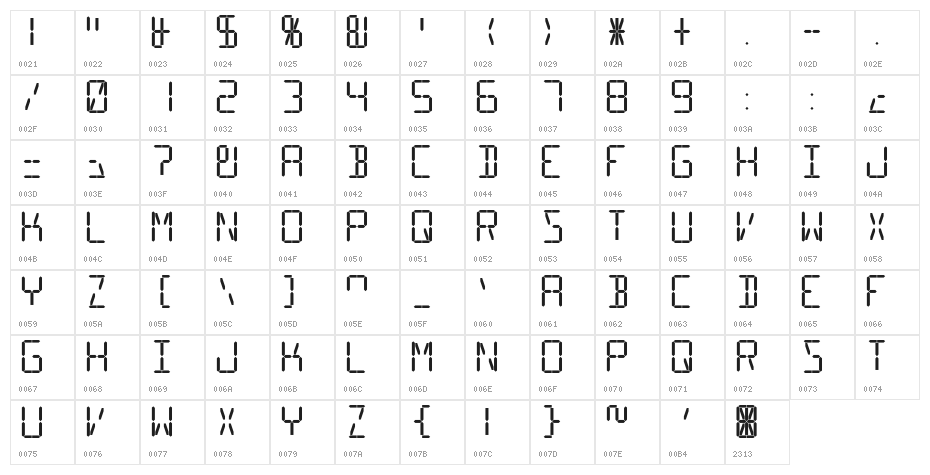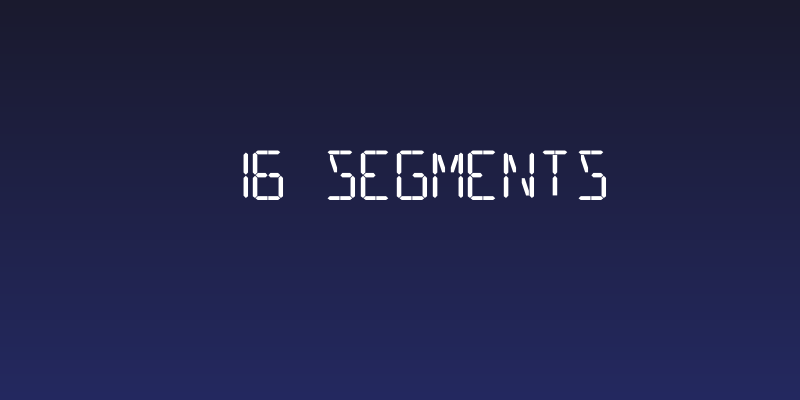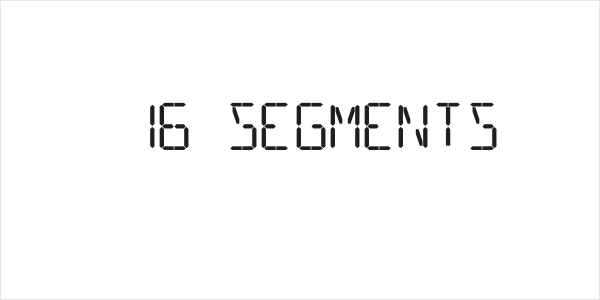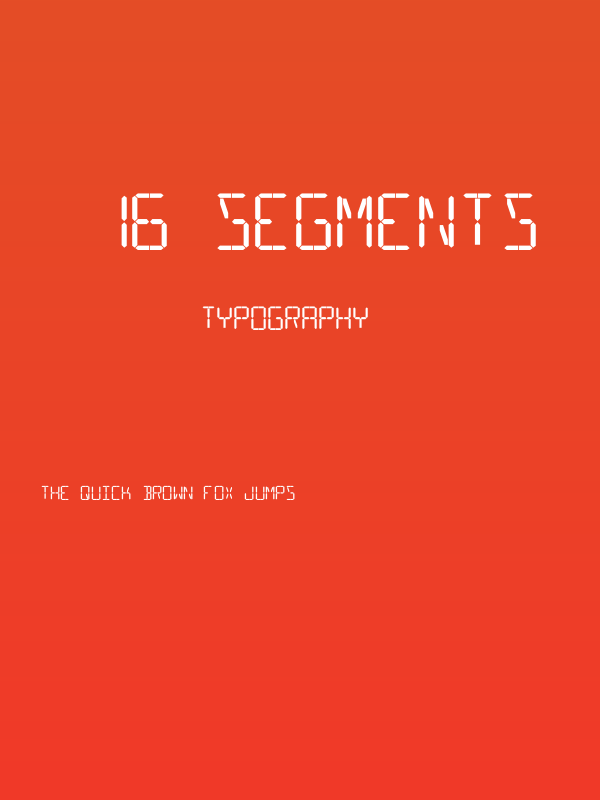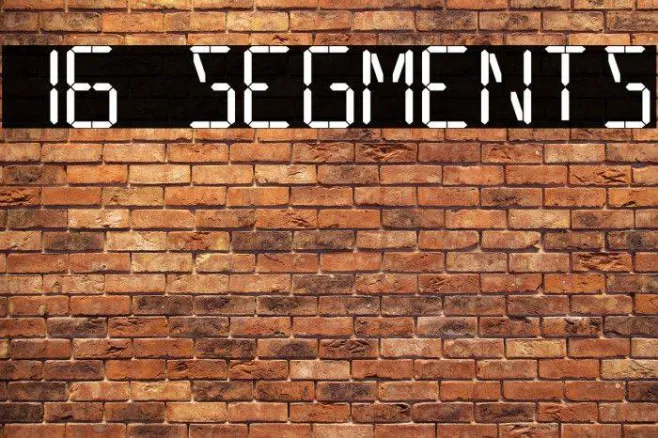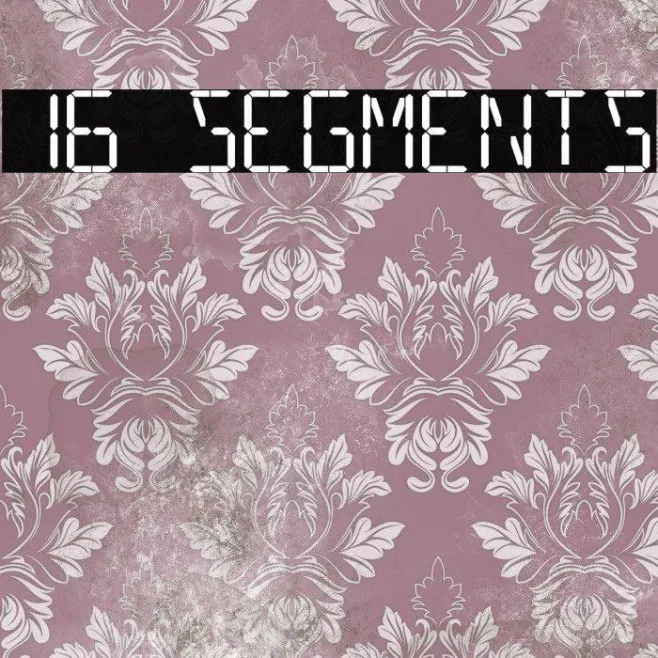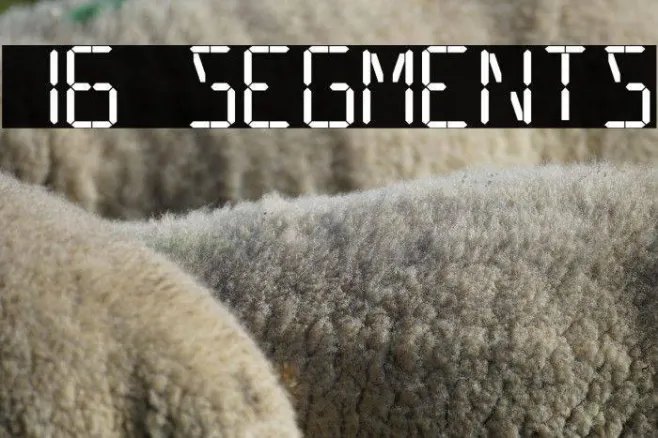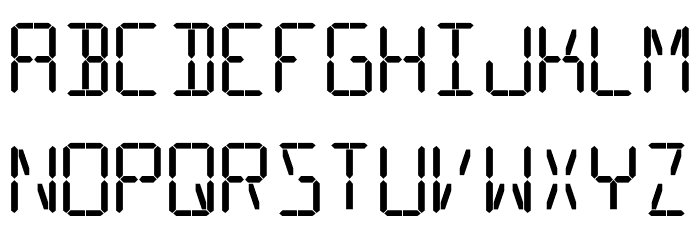
16 Segments Font
16 Segments Description
This font is characterized by its digital, segmented appearance, reminiscent of classic LED displays. Each character is formed using a series of straight lines and angles, creating a geometric and technical aesthetic. The design is highly structured, with uniform line thickness and a consistent modular style across all characters. This font is ideal for conveying a sense of technology and precision, often used in contexts where a digital or retro-futuristic look is desired. The characters are easily legible, making them suitable for both display and functional purposes.
| Use Case | Headlines, Logos, Digital displays |
| Proposed Projects | Ideal for digital clocks, electronic displays, tech-themed designs, and retro-futuristic projects. |